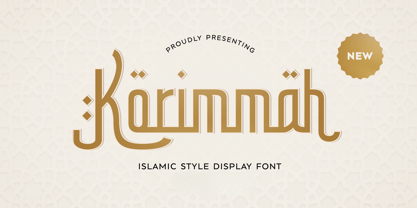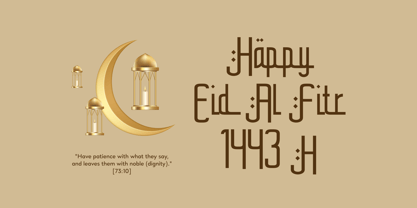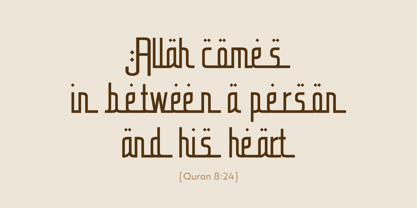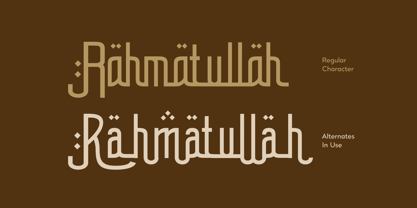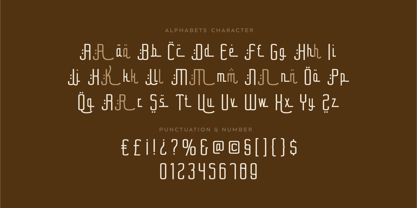
Korimmah
by Imoodev
The Korimmah Font Family was designed by Aulia Savira Putri and published by Imoodev. Korimmah contains 1 styles. More about this family
Korimmah is an arabic calligraphy script font. It features elongated and flowing letterforms, smooth curves, and the use of diacritical marks, such as dots and accents, highlighting the authenticity of middle eastern culture. The font’s distinctive accents, including dots and diacritics, lend it an artistic and cultural character, making it particularly suitable for Eid Mubarak greetings, Ramadan events, and Islamic branding. This font is highly versatile and well-suited for applications such as packaging, headlines, product designs, greeting cards, book covers, posters, Islamic event promotions, and a broad range of design or artistic projects that highlight Islamic or cultural themes.
Designers: Aulia Savira Putri
Foundry: Imoodev
Korimmah